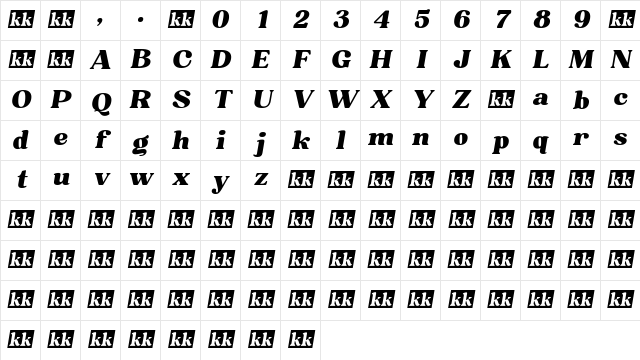
Bugaki Italic Free Font
Bugaki Italic
Foundry: Kulokale Studio
Designer: M Arif Dwi Prasetyo & Eko Nurcahyo
Design Context for Bugaki
Bugaki is a composed and adaptable typeface that performs quietly and consistently across a wide range of design contexts. The slanted form adds forward momentum and visual energy.
Pro Tip: Use Bugaki for emphasis, pull quotes, and subheadings where its slanted energy can add rhythm to the layout.